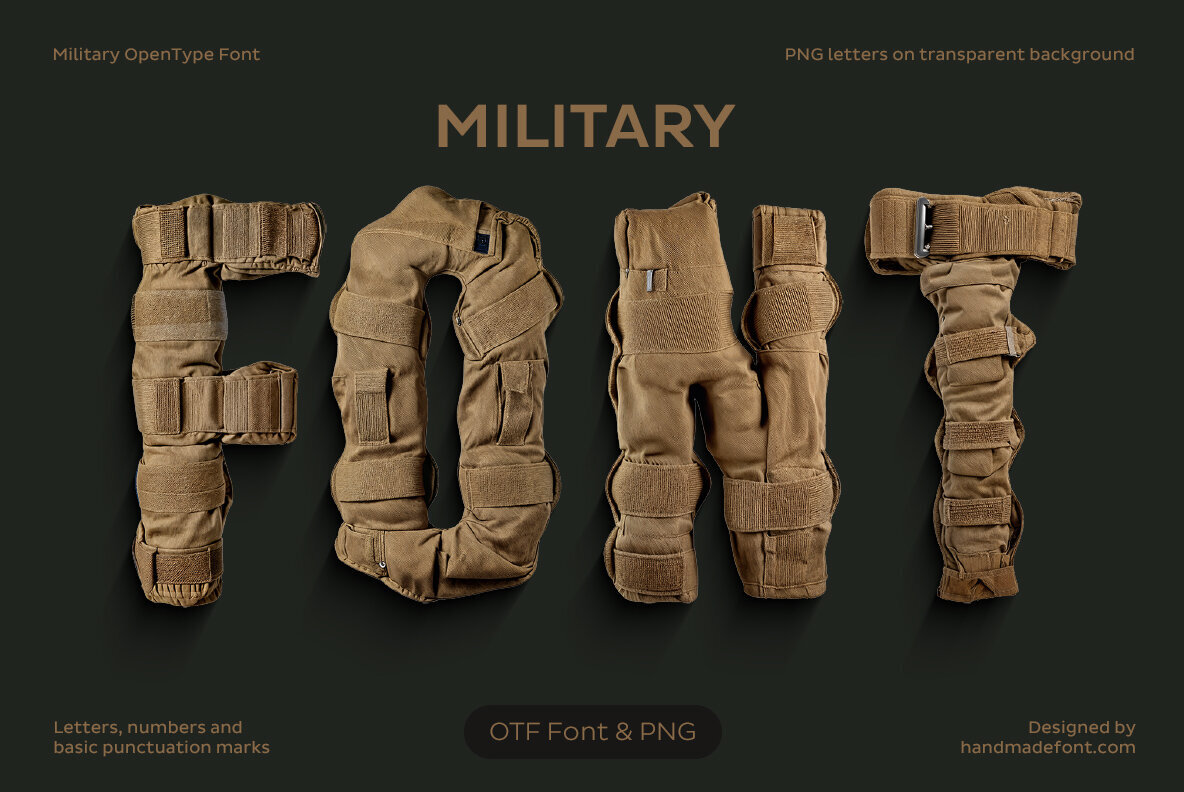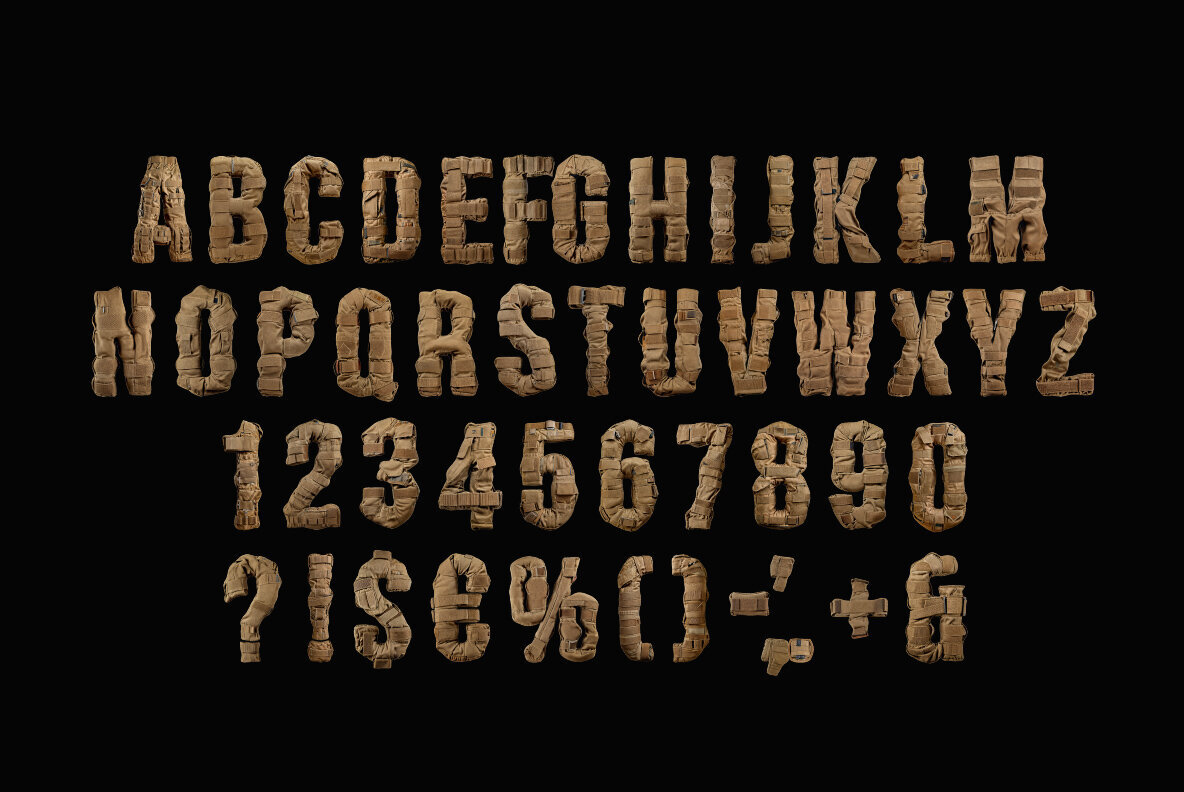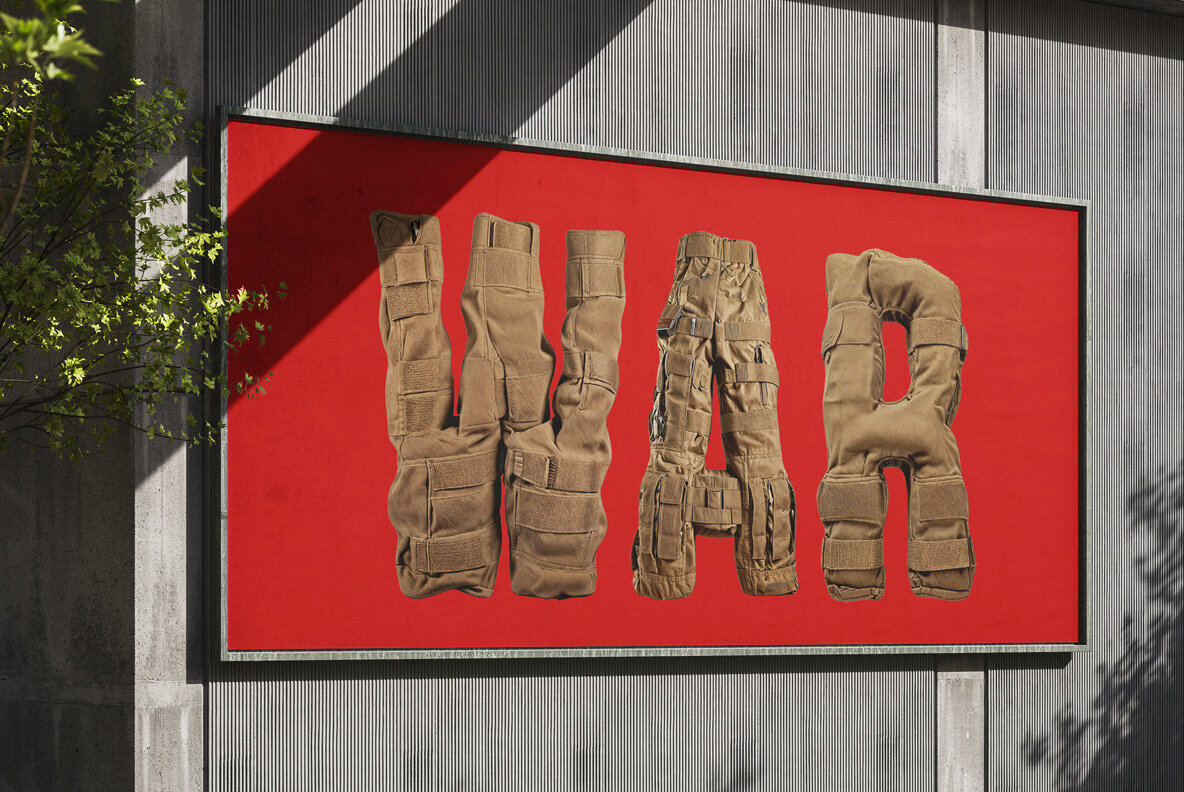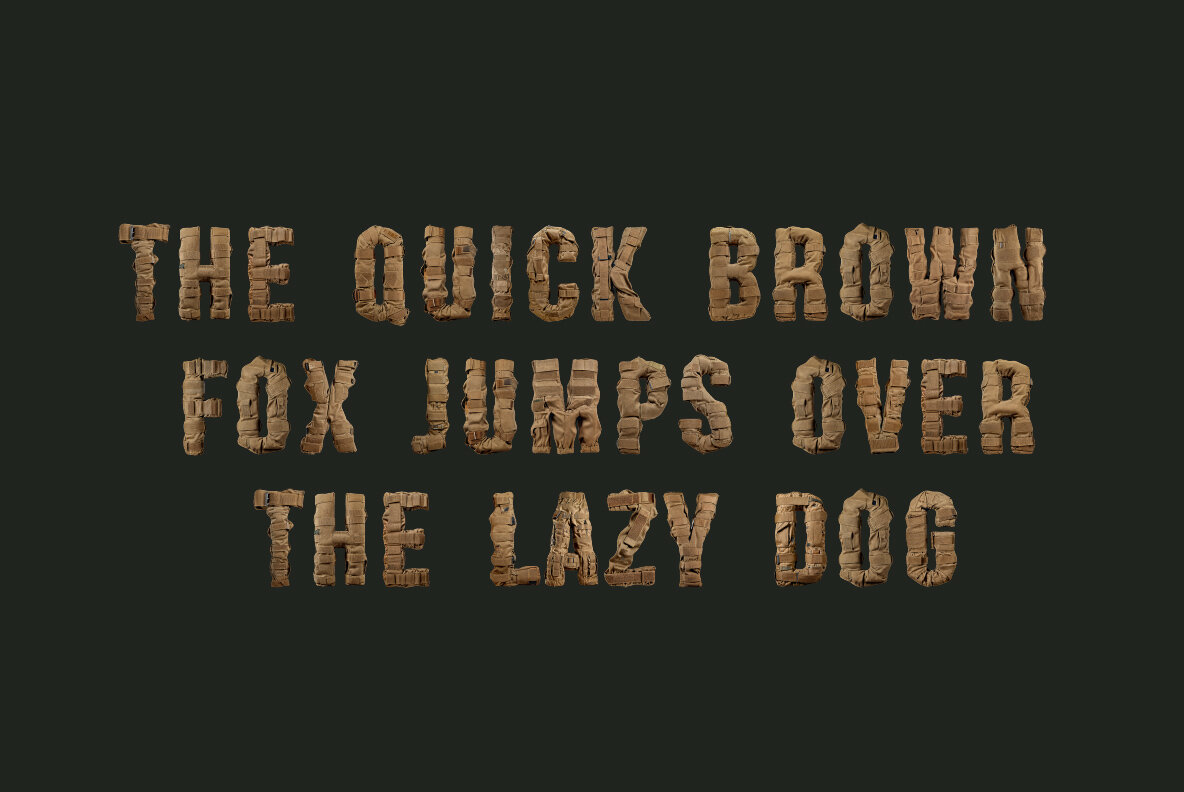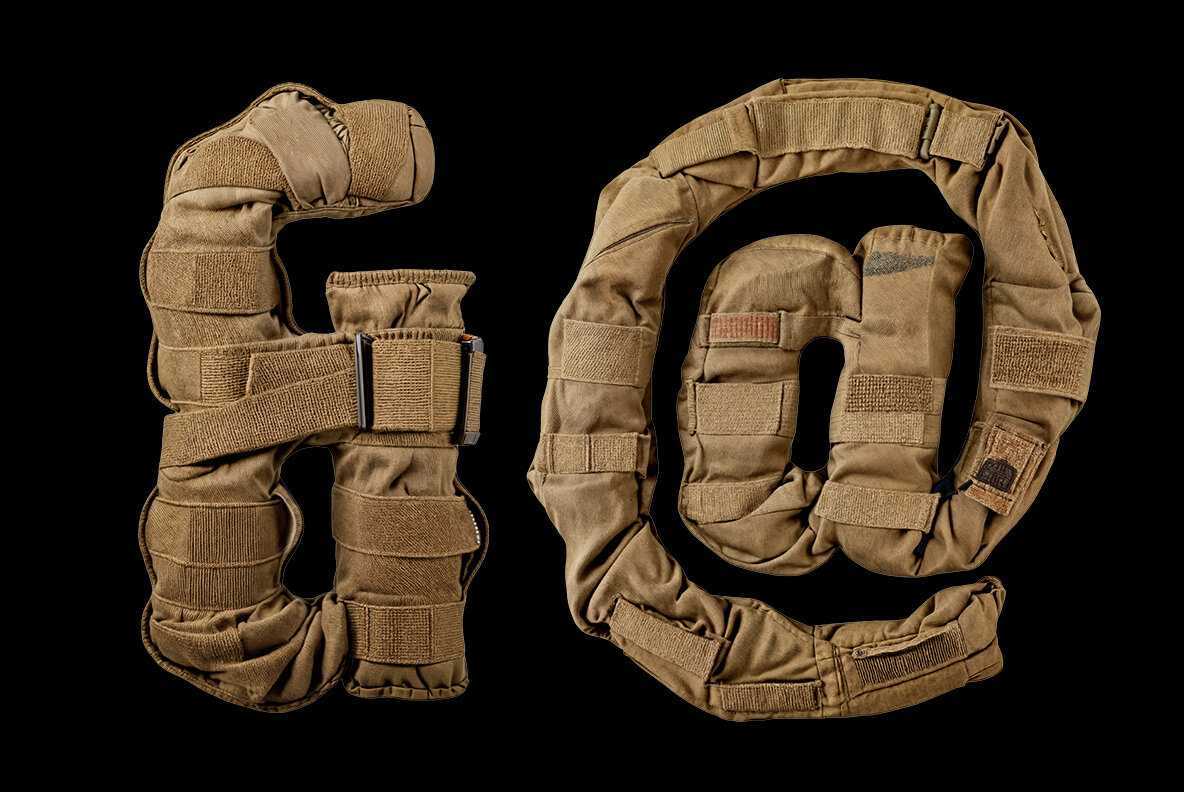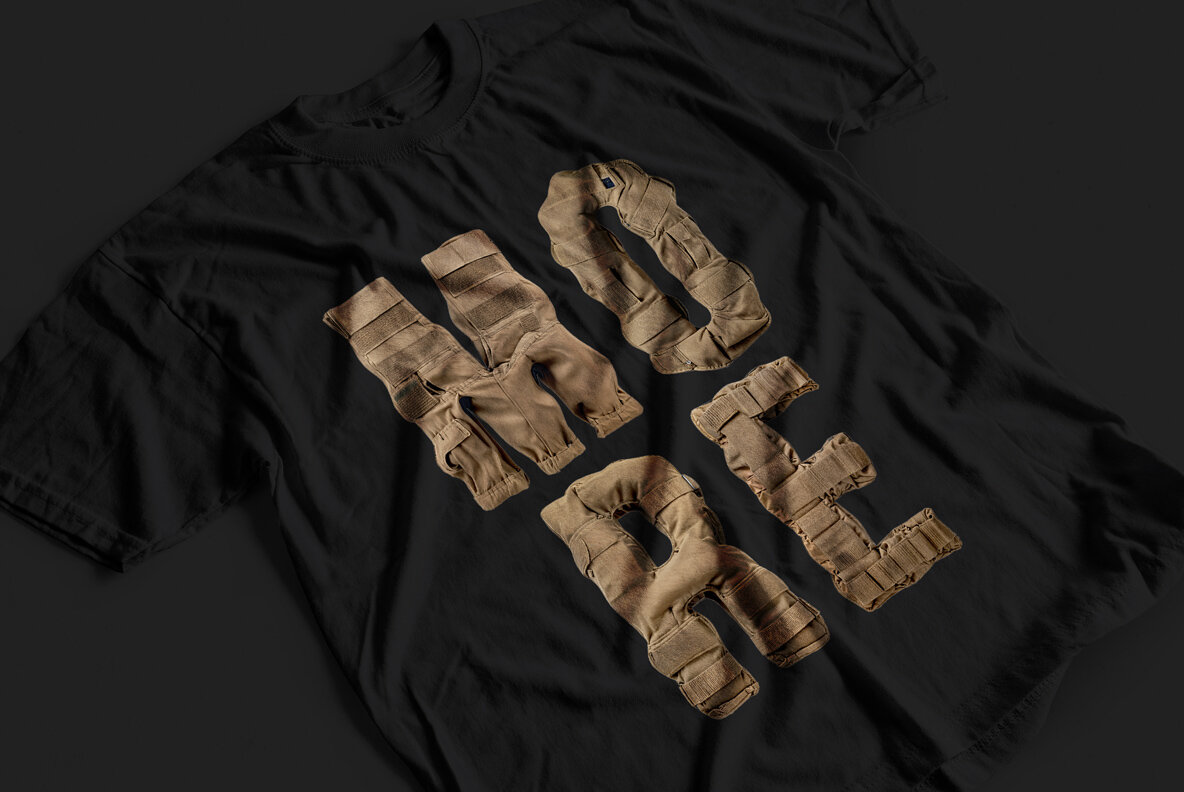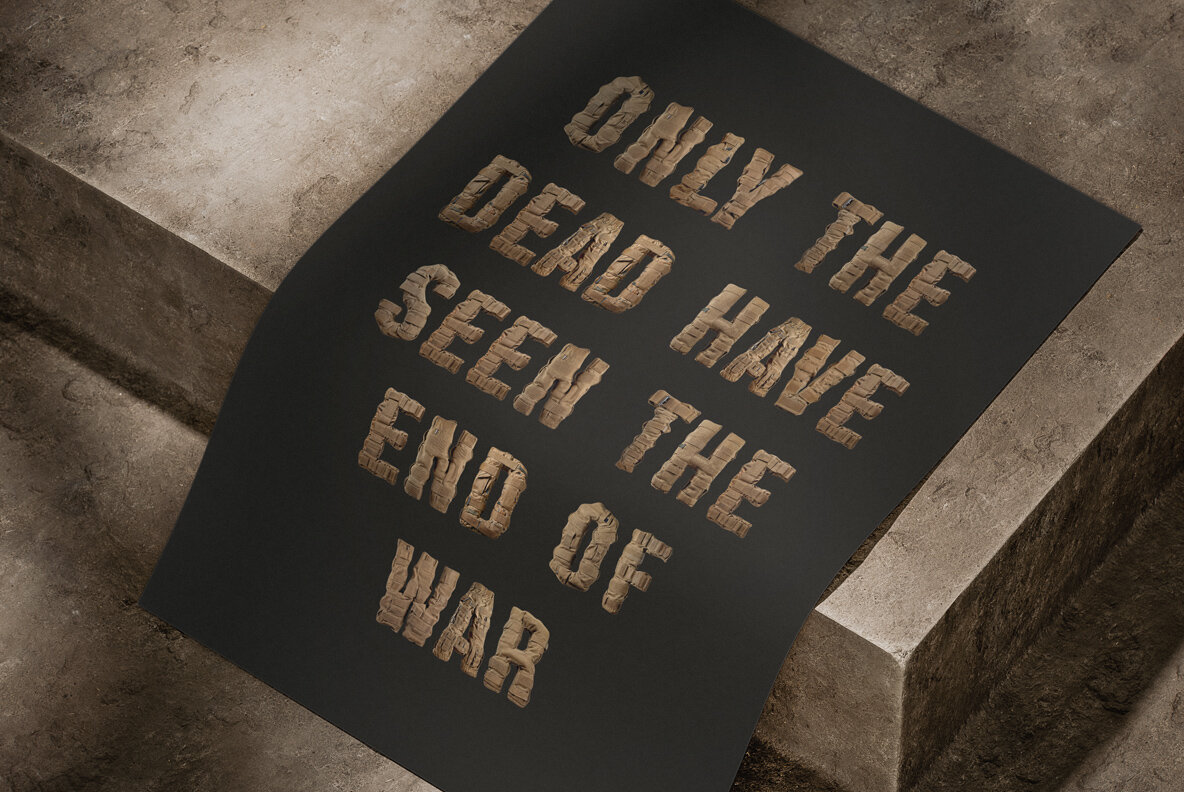
The Military SVG font delivers authentic army detail for design professionals who value realism and impact. Each character is created using genuine army-style fabric and tactical gear material, featuring detailed textures like straps, stitches, and folds. Every letter radiates a sense of action, courage, and endurance—perfect for applications that require bold, cinematic energy. This versatile typeface excels in posters, film titles, packaging, and tactical branding, giving your design projects a commanding presence. The set includes uppercase characters, numerals, and essential punctuation, all with a draw height of approximately 800 pixels. With OpenType-SVG compatibility, the font can be used in a variety of design programs that support color bitmap fonts, including Photoshop, Illustrator, InDesign, and more. In addition, each glyph is provided as a high-resolution PNG (4000x4000px) for maximum flexibility across platforms.Military SVG Typeface – Crafted from Army Fabric